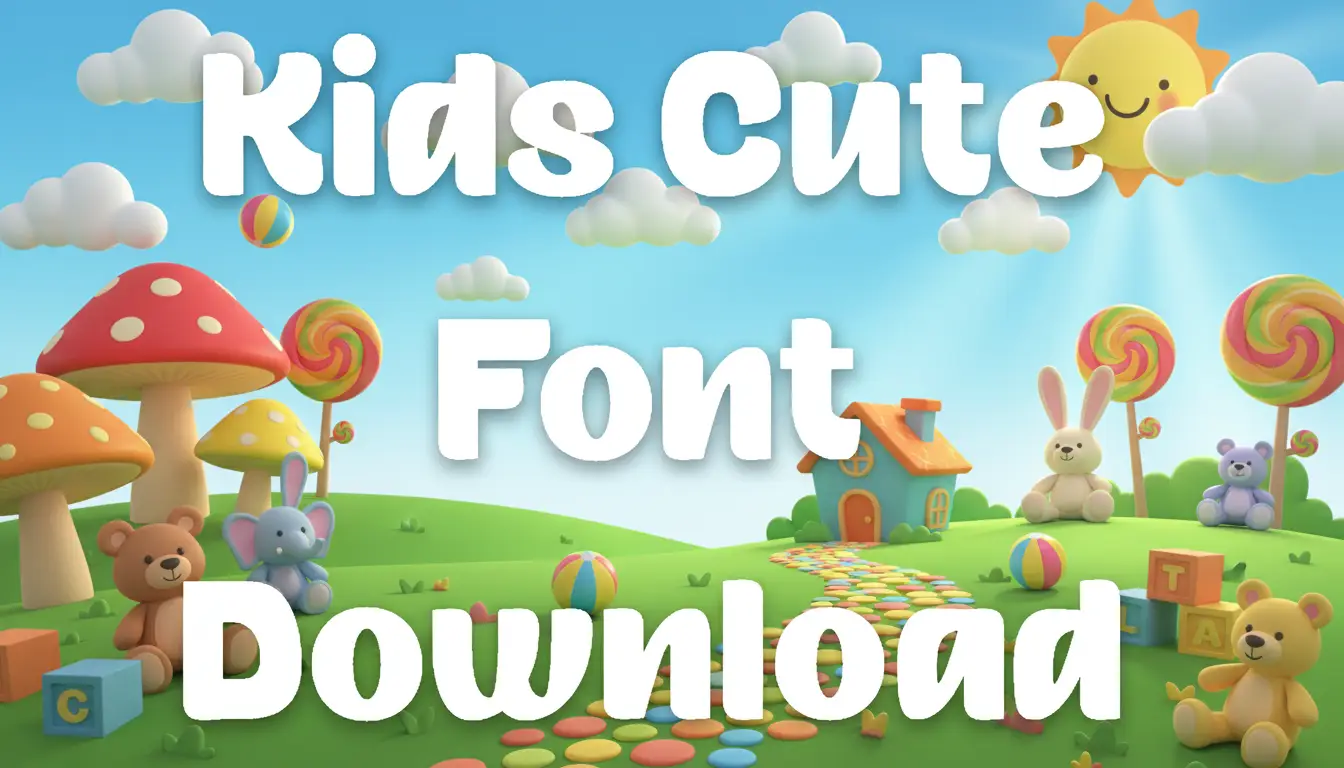
Kids Cute Font
Kids Cute is a fancy font created by Sigit Dwipa Raharjo and released through Nirmana Visual. It's a decorative display font with plenty of personality, made to grab attention. It's a free download, and you can try it with your own text in the preview above first.
Kids Cute has the full alphabet in upper and lowercase. There are no numbers, so you'll need a second font for dates, prices or phone numbers. Common punctuation such as &, !, ? and @ is included as well. It also has the accented letters you need for Spanish, French, German, Portuguese and Italian.
Kids Cute is a natural fit for posters, logos and eye-catching headlines. Use it for one standout word or headline and let simpler fonts handle the rest.
Yes. Kids Cute includes the accented letters needed for Spanish, French, German, Portuguese and Italian, so it works for more than just English.